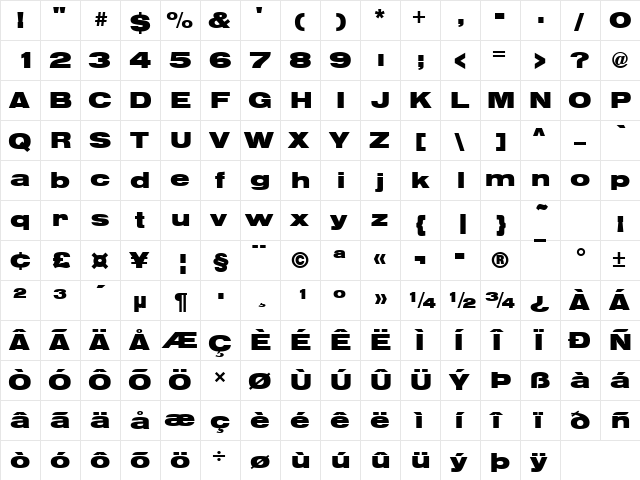
Nimbus Sans Becker TBlaExt Regular
Design Context for Nimbus Sans Becker TBlaExt Typeface
Nimbus Sans Becker TBlaExt takes a measured approach to typography — its balanced proportions and neutral character make it a reliable workhorse for both digital and print work.